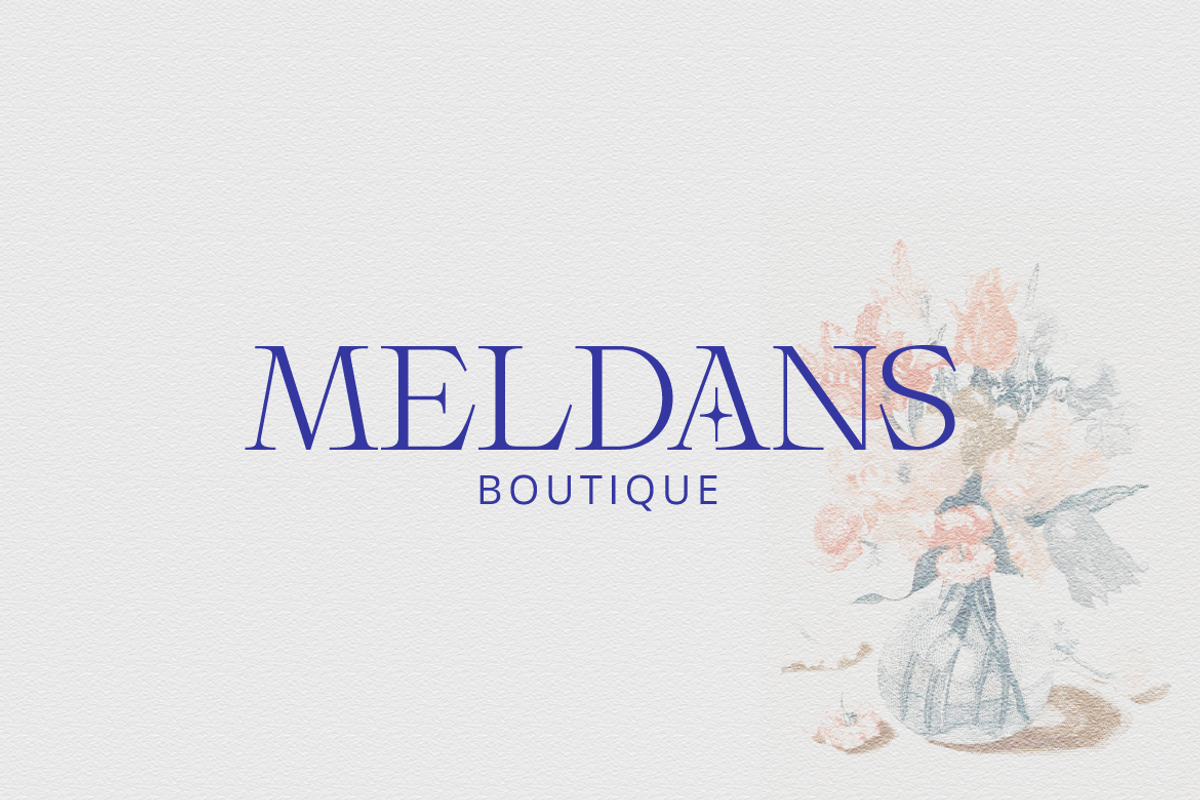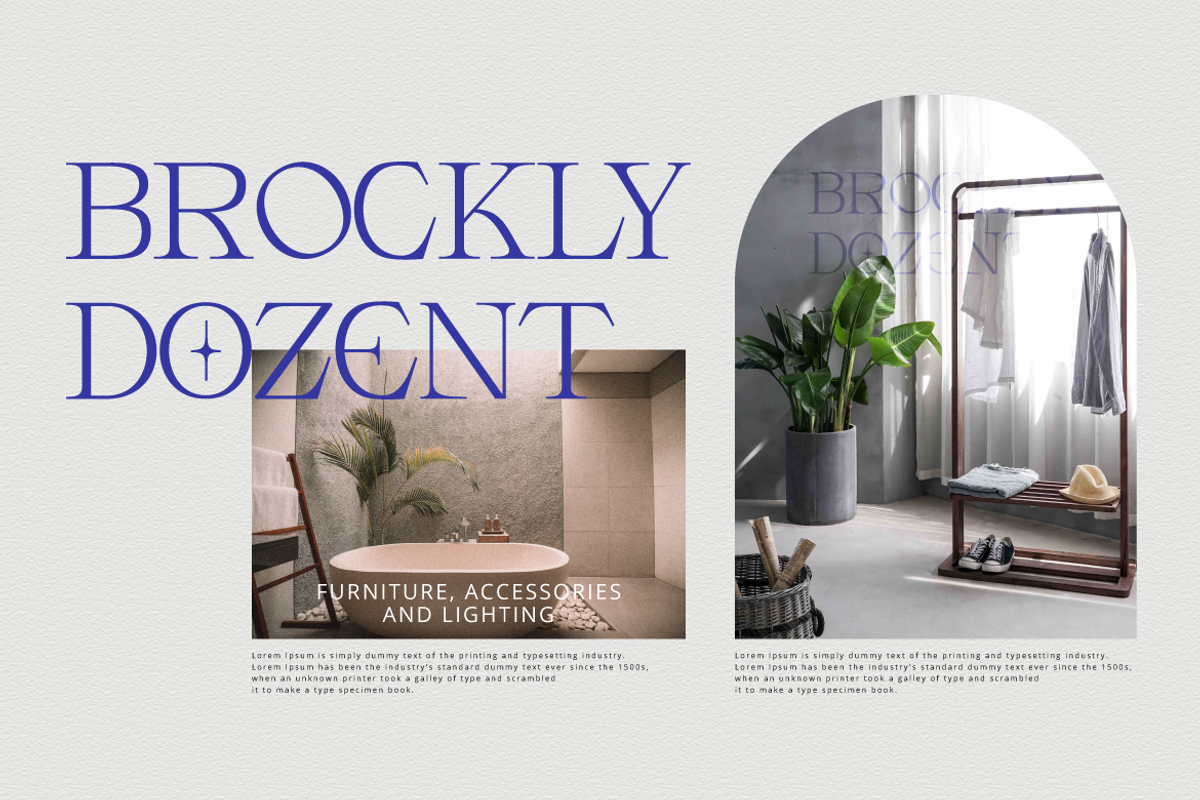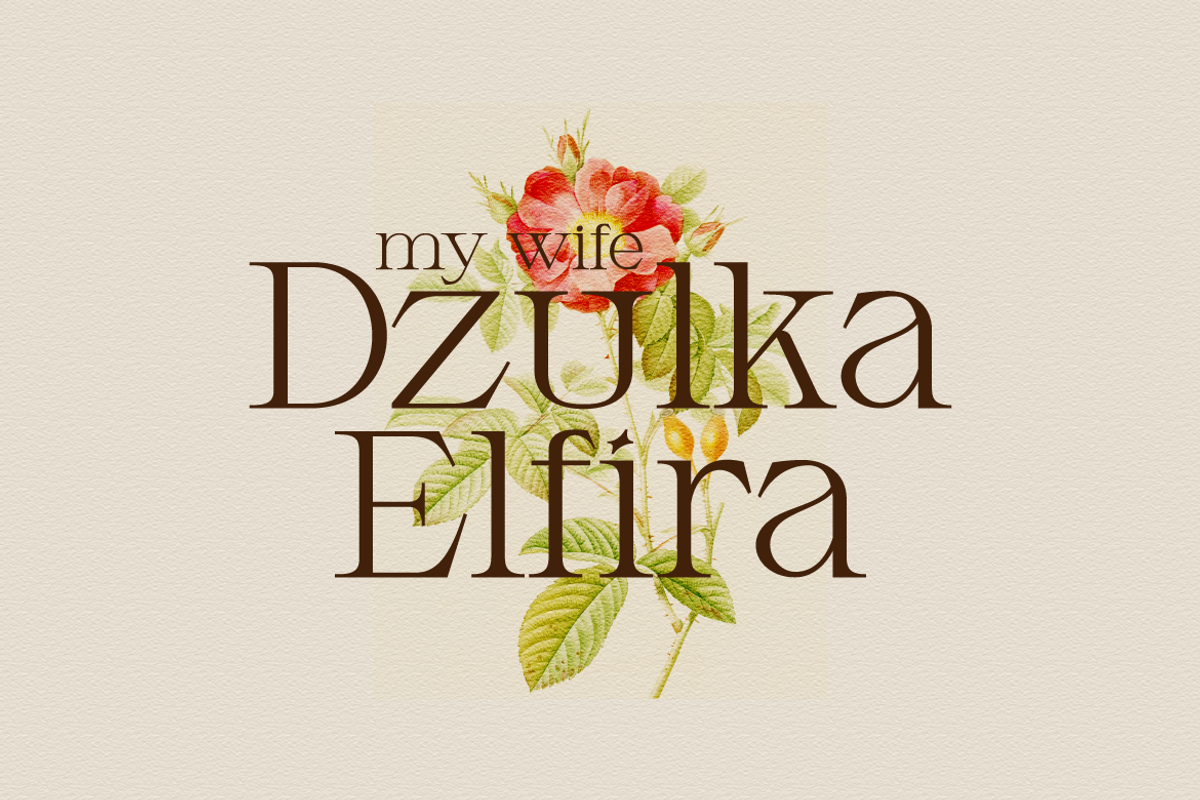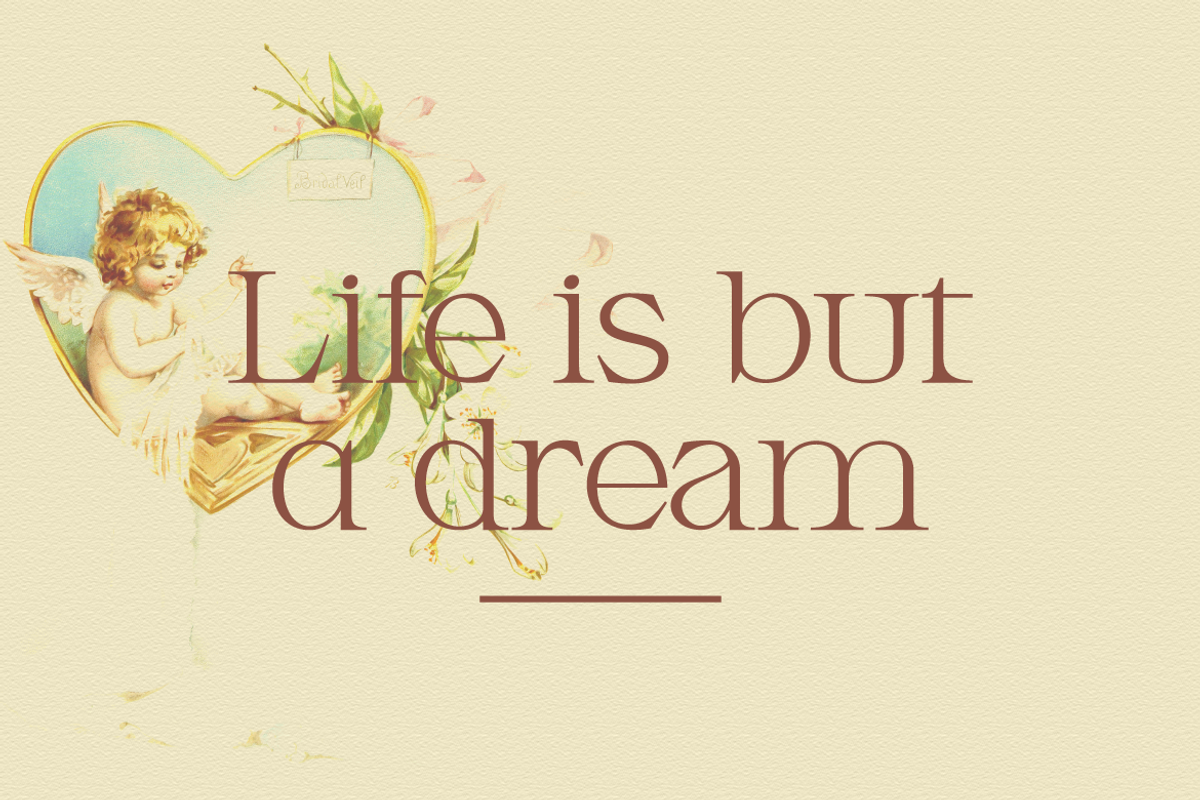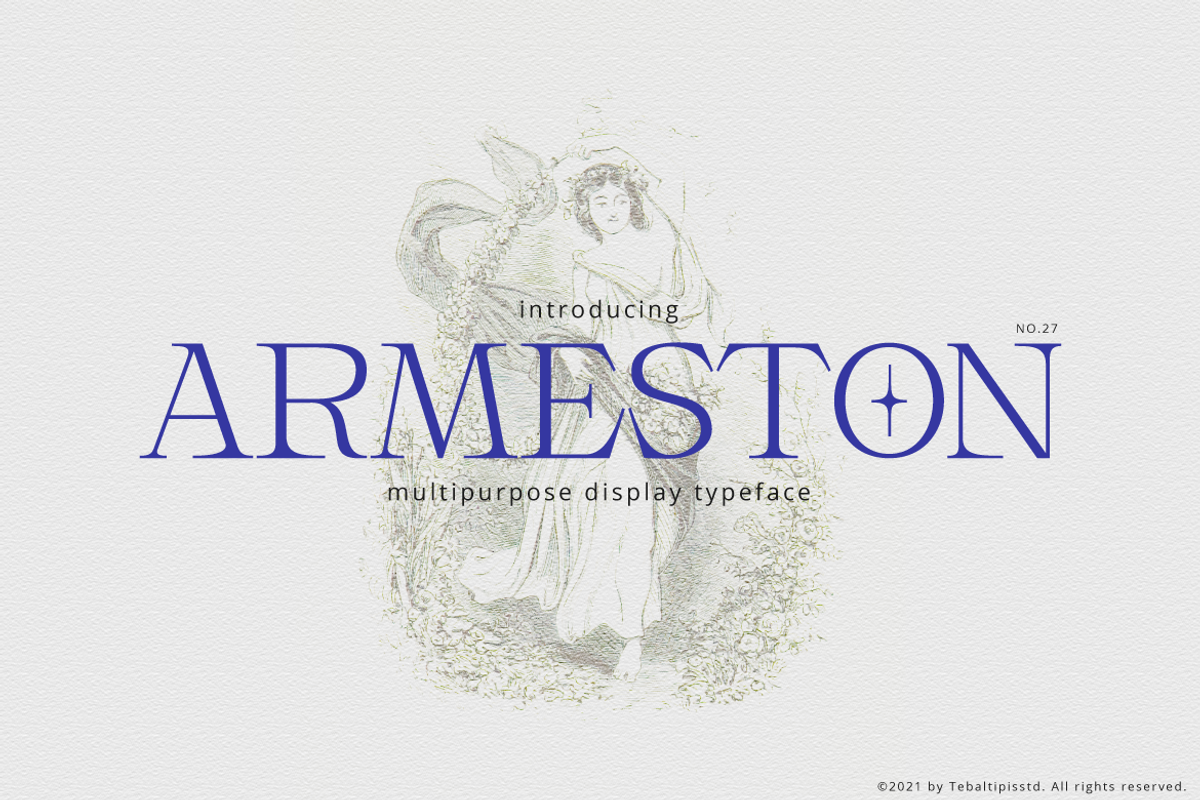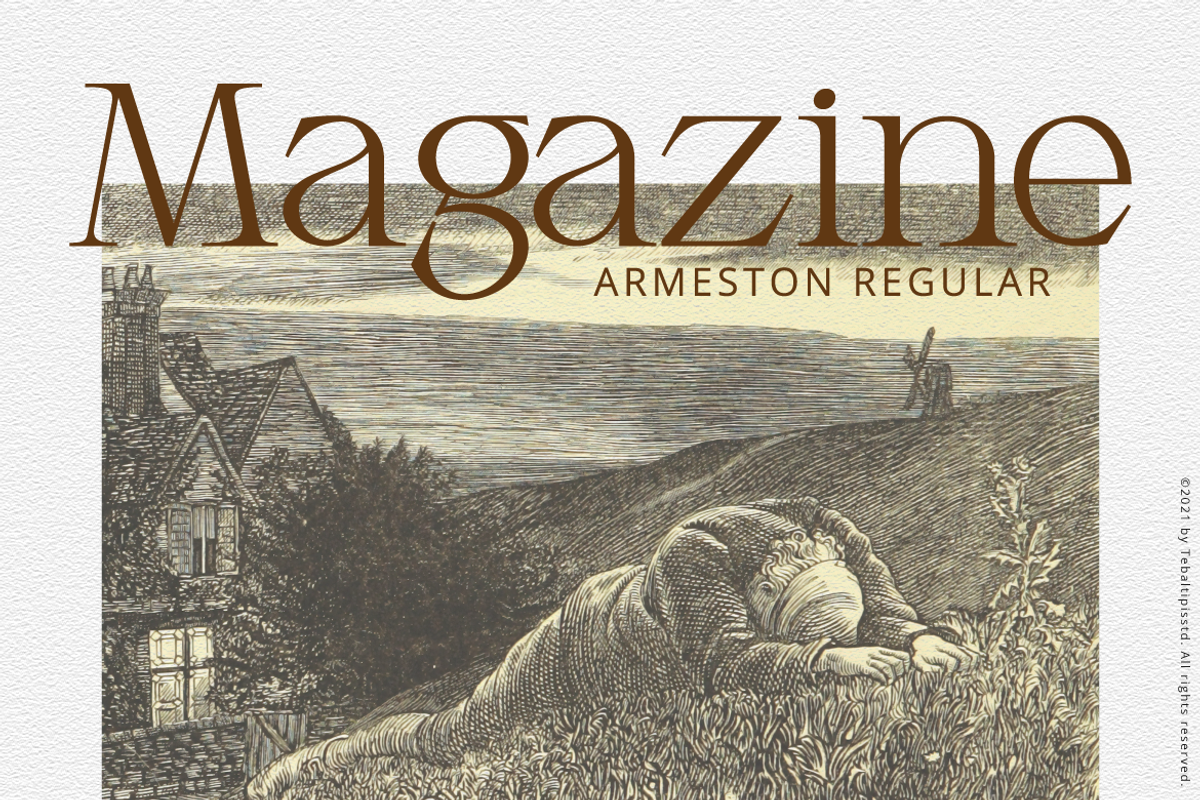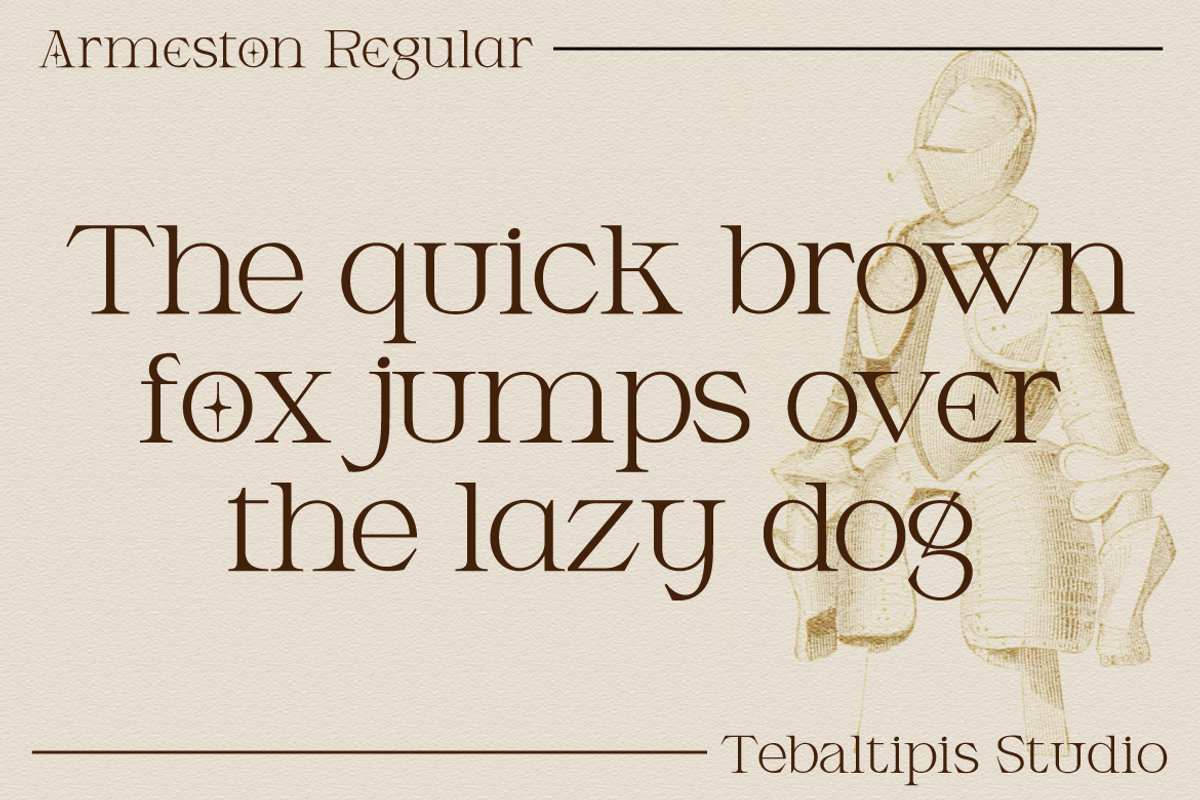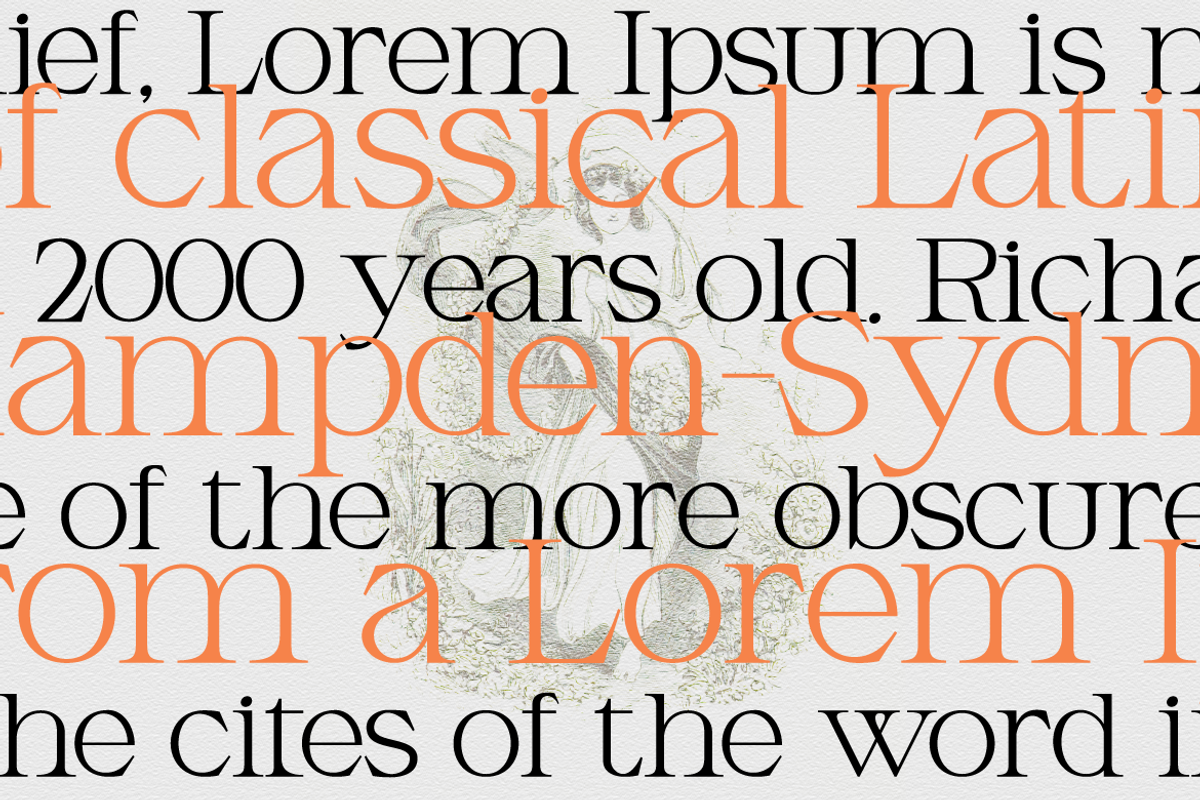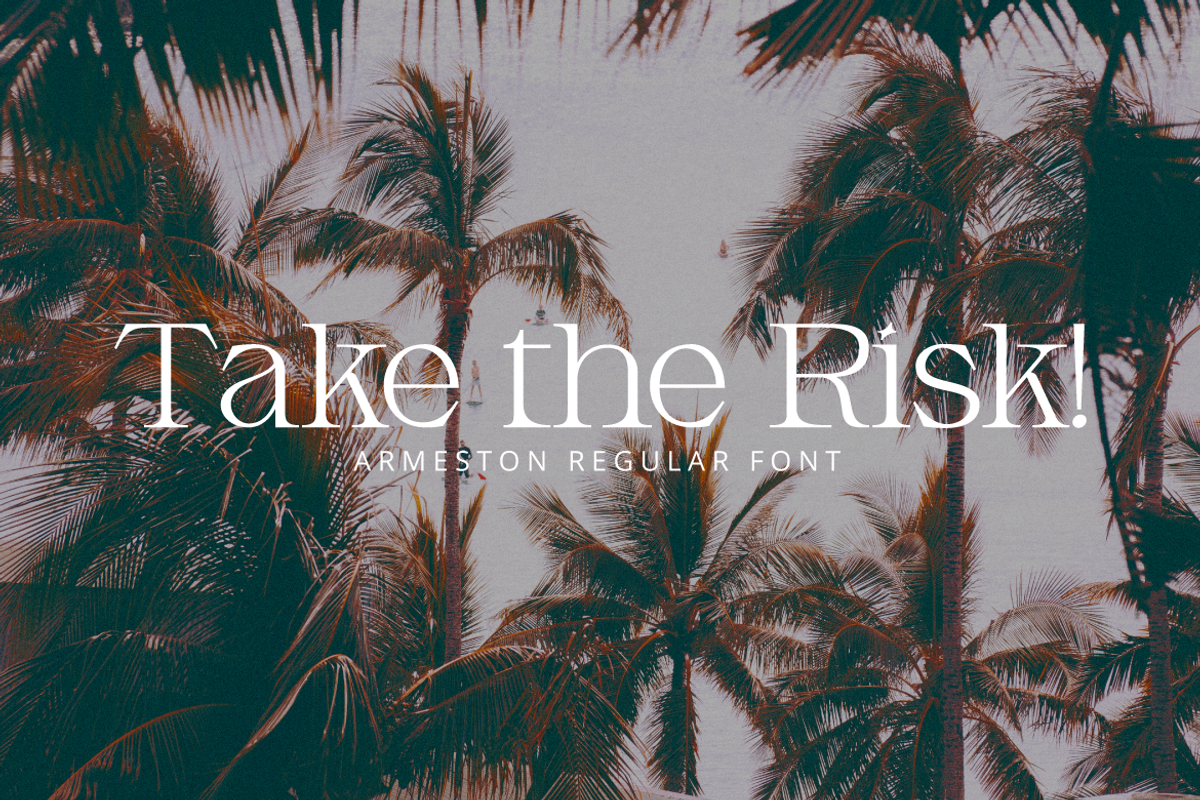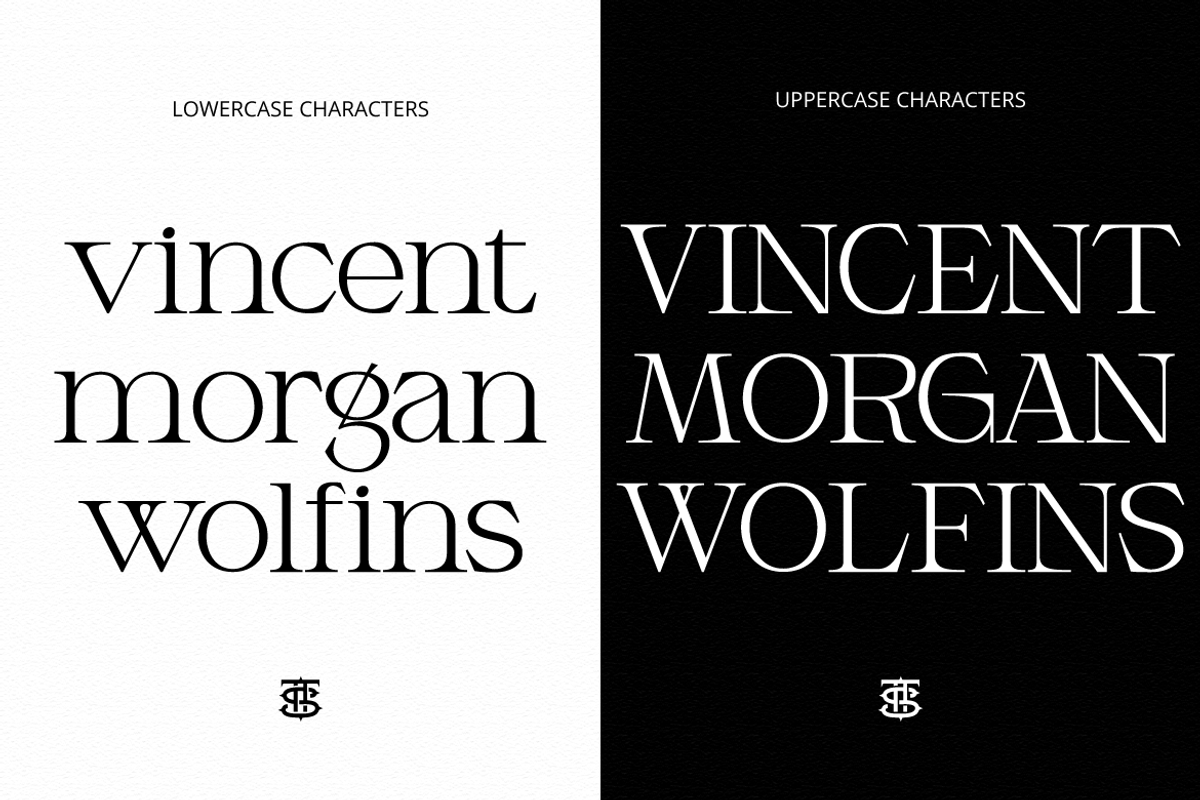
Armeston - Modern Serif
Armeston Display - MultiPurpose Serif Typeface - Classic Expressive Fancy Display Font
Armeston Display comes with some alternates, so you can combine it to make a perfect typography design. It is perfect for your up coming projects. Such as luxury logo and branding, classy editorial design, woman magazine, cosmetic brand, fashion promotional, art gallery branding, museum, historical of architectural, boutique branding, stationery design, blog design, modern advertising design, card invitation, art quote, home decor, book/cover title, special events and any more.